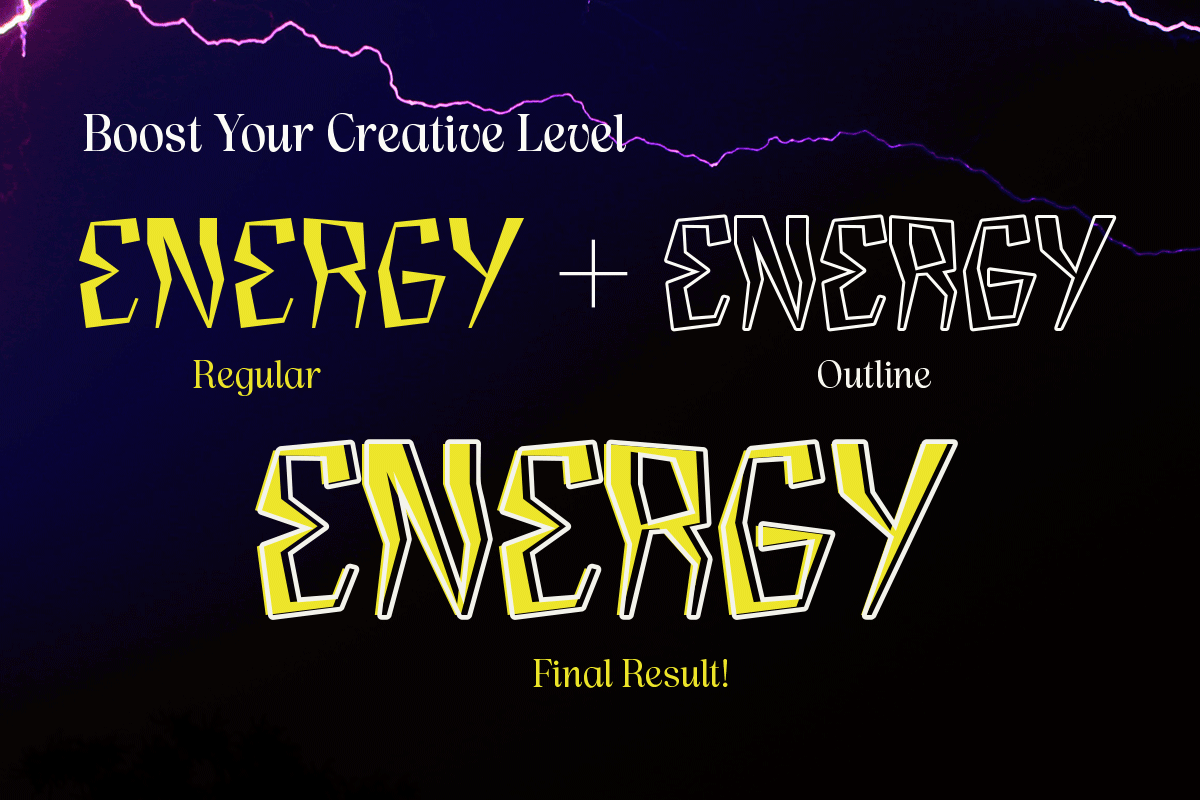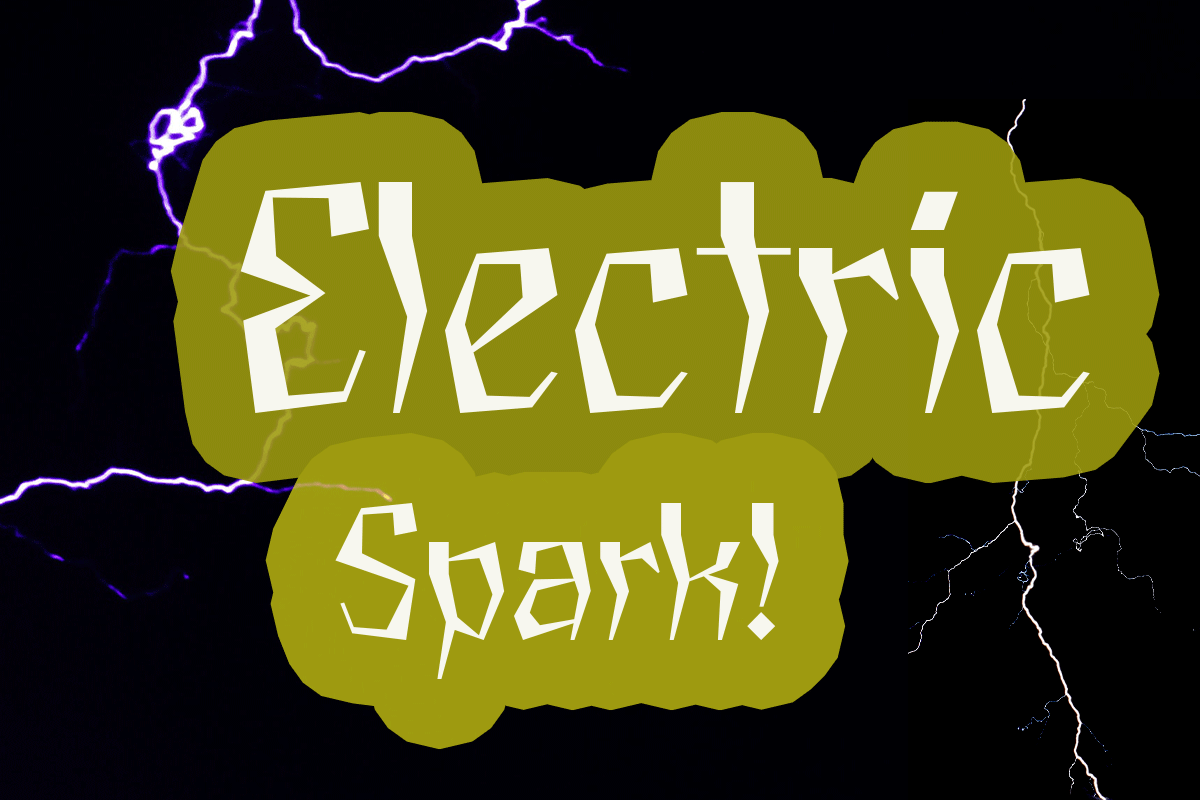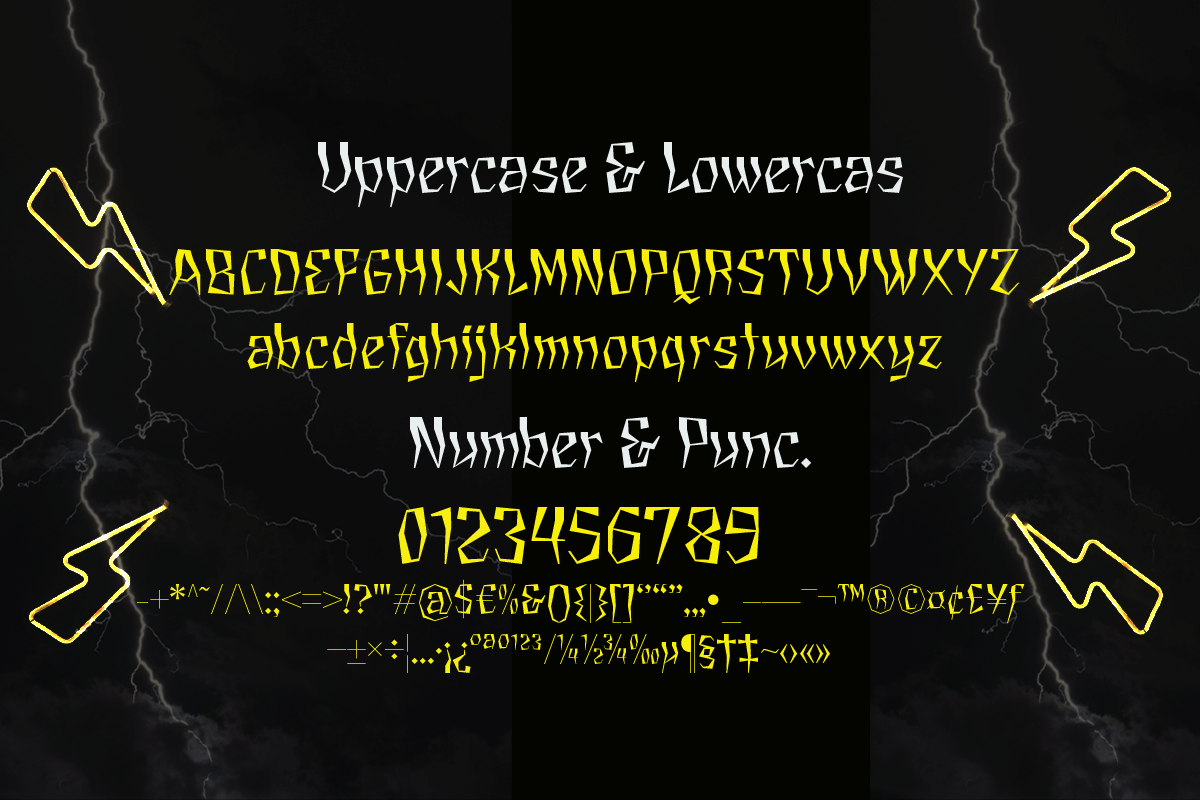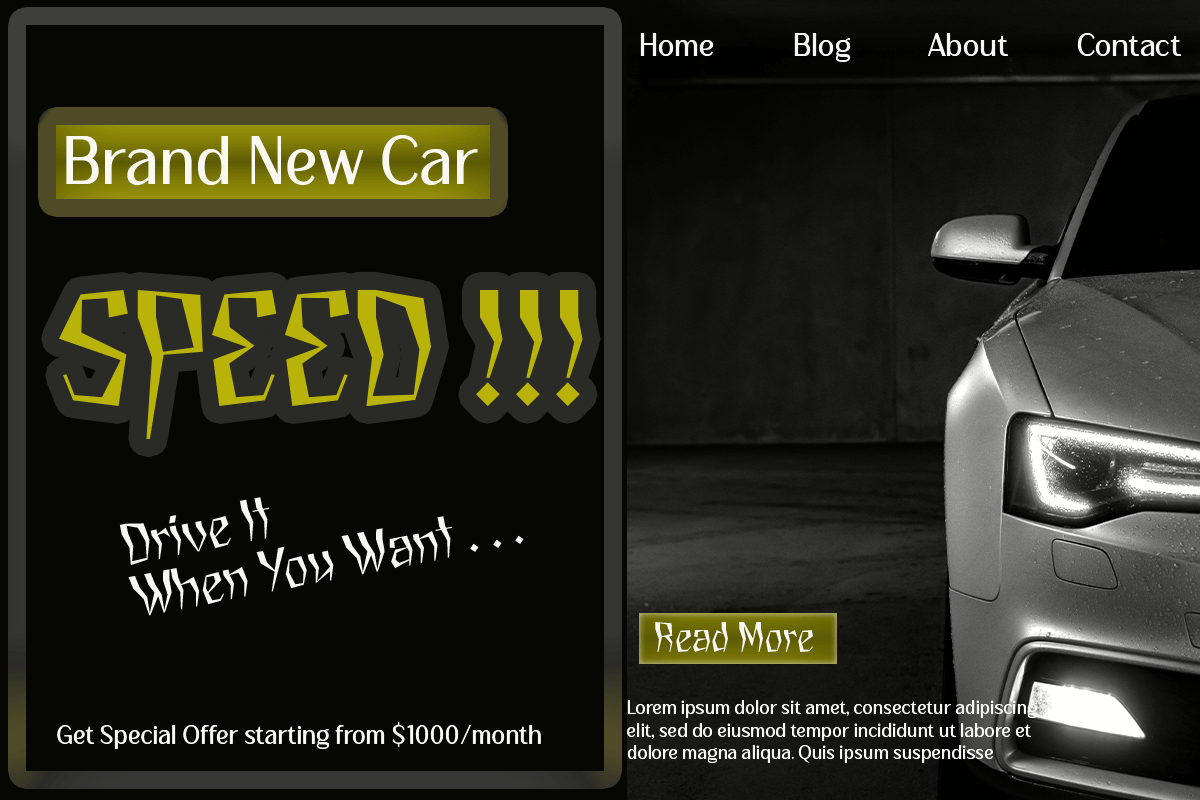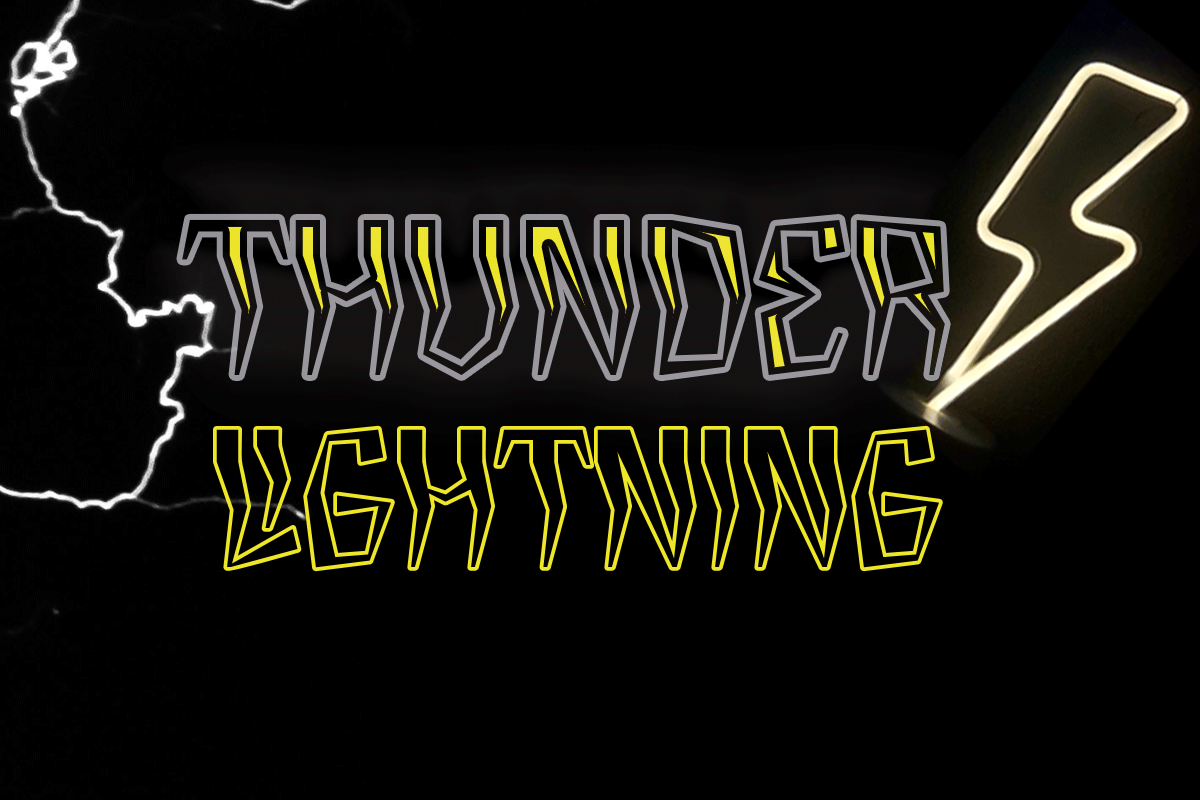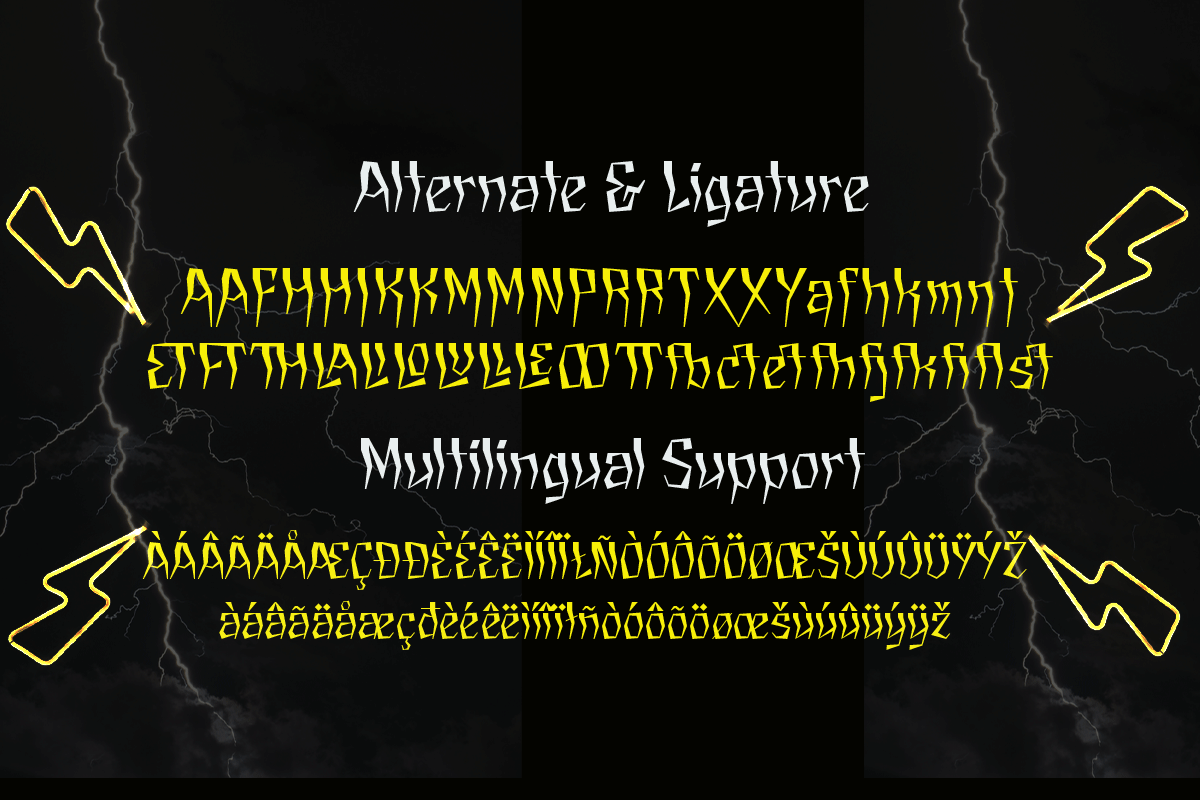
Gledek
Gledek is a lightning display font that comes in two styles. The regular and outline styles complement each other perfectly for any purpose such as logos, sports, games, club branding, posters, labels, comic books and more. Add this font to every project you create to make it brighter and stand out.